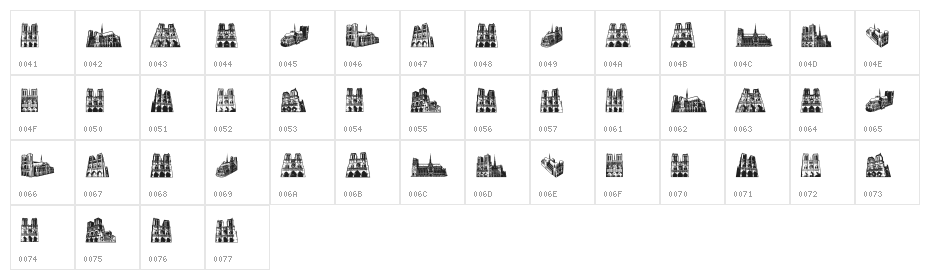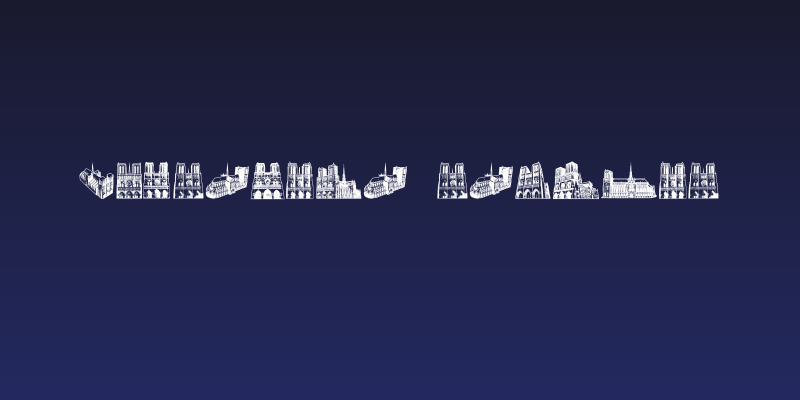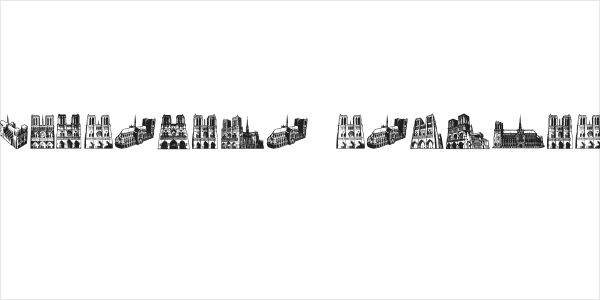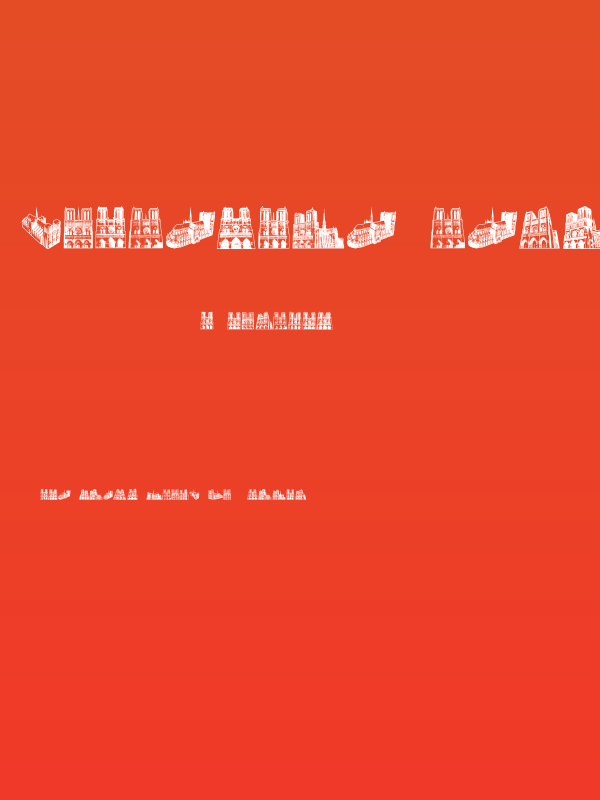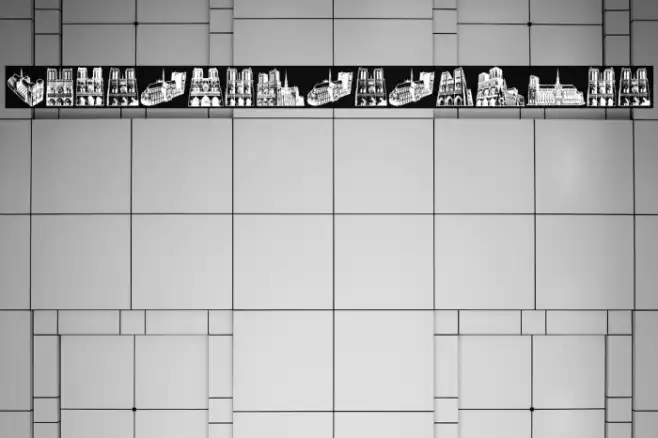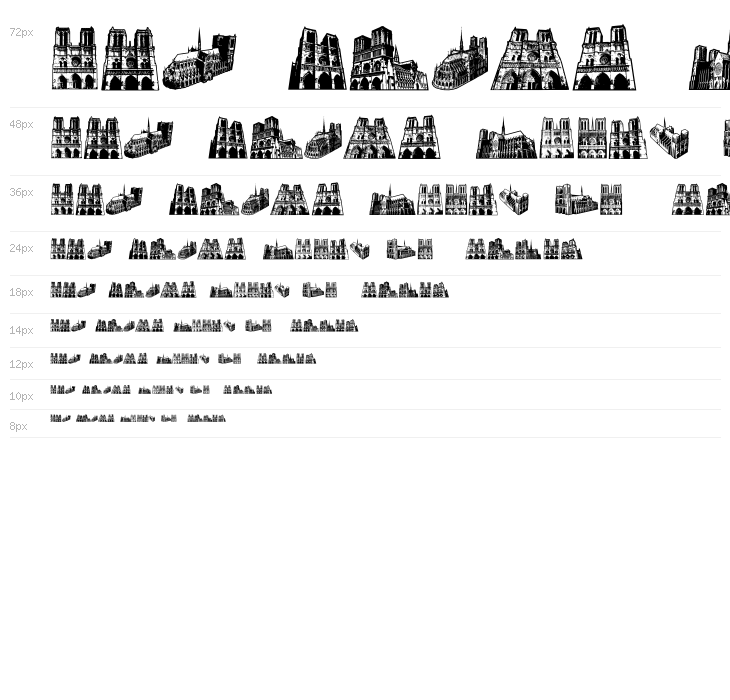
NotreDame Regular Font
NotreDame Regular Description
This font is a highly decorative and artistic representation, featuring intricate illustrations of architectural elements reminiscent of the iconic Notre Dame Cathedral. Each character is uniquely crafted to resemble a part of the cathedral, with detailed arches, towers, and spires. The style is bold and striking, capturing the grandeur and historical significance of Gothic architecture. The font is not designed for readability in body text but rather for artistic and thematic purposes, where the visual impact is prioritized over legibility.
| Proposed Projects | Ideal for themed posters, historical event invitations, architectural exhibitions, or any project requiring a touch of Gothic elegance. |